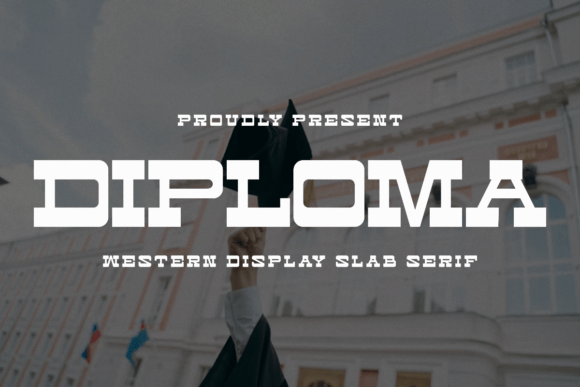
Diploma Font Download Slab Serif Fonts: Fonts tell stories—and Diploma Font tells one rooted in tradition, authority, and old-school charm. With bold serifs, a classic Western display style, and a nod to vintage academic aesthetics, Diploma is a font that instantly grabs attention. It’s the kind of typeface that doesn’t whisper but proudly makes its presence known.
Whether you’re designing for a school event, crafting a commemorative mug, or working on a vintage T-shirt graphic, Diploma Font delivers with strength and style. It blends the heritage of classic education-themed design with the rugged look of Old West signage, making it a unique hybrid that stands out in a sea of minimalism.
What is the Diploma Font?
Diploma Font is a bold Western-style slab serif display font, crafted to evoke academic honor, vintage tradition, and masculine design flair. It features wide, strong letterforms with extended serifs and a distinct vertical posture—making it a perfect choice for:
Graduation announcements
Teacher appreciation posters
Vintage T-shirts
Café or pub signage
Book covers with historical themes
Academic branding
Think of it as the perfect fusion between an Ivy League certificate and a dusty Western saloon sign. Bold, confident, and brimming with nostalgia.
What Makes Diploma Font Unique?
Not every slab serif is created equal. While many serif fonts lean toward elegance or formality, Diploma stands tall with a rugged academic charm that’s both nostalgic and assertive. Here’s why designers love it:
🎓 1. Academic Elegance Meets Western Grit
Diploma gives you the respectability of a university diploma with the flair of a vintage rodeo poster. That balance of tradition and boldness makes it highly versatile.
💪 2. Strong Visual Hierarchy
As a display font, Diploma commands attention. Its bold weight and distinctive serifs make it ideal for headers, signs, and focal text—anywhere you need to make a lasting impression.
🧾 3. Perfect for Print and Merchandise
Diploma looks incredible on physical items—think T-shirts, mugs, tote bags, or banners. Its thick strokes and solid presence ensure it prints well without distortion.
🖋️ 4. Historical and Timeless
From academic certificates to commemorative posters, Diploma brings a historical gravitas that makes any design feel official, strong, and lasting.
Where Can You Use Diploma Font?
The uses for Diploma are many, but it shines especially well in these contexts:
🎉 Graduation Announcements
Give your graduation cards or event invites a dignified look that still feels modern and eye-catching. Diploma brings celebration and tradition into one space.
🍎 Teacher Appreciation Designs
Want to design a mug or print for a beloved educator? This font’s academic feel and visual authority make it perfect for thank-you gifts, posters, and classroom signs.
👕 T-Shirts & Apparel
Whether it’s a “Class of 2025” tee or a retro-style slogan, Diploma holds up beautifully on fabric. Its boldness makes sure the text stays readable and prominent from a distance.
🧑🏫 School Logos & Merchandise
Small schools, colleges, and institutions can use Diploma to bring classic prestige to their logos, event materials, and graduation memorabilia.
🎨 Vintage-Themed Posters
If your design project has an old-school vibe—think saloon posters, history-themed events, or Americana-style branding—Diploma fits in effortlessly.
Font Pairing Suggestions for Diploma
Because Diploma is a strong display font, it works best when paired with simpler, softer fonts for body copy. Here are some great combinations:
Diploma + Roboto – Classic serif meets clean sans for modern contrast
Diploma + Lora – Adds an elegant, legible serif for content-heavy designs
Diploma + Open Sans – A neutral, professional pair that keeps focus on headings
Diploma + Raleway – Works well in posters and flyers with a visual hierarchy
Diploma + Montserrat – Strong contrast between display and UI typefaces
Final Thoughts: Make a Bold Statement with Diploma Font
Diploma Font is more than just a typeface—it’s a celebration of legacy, education, and expressive design. Its powerful structure, bold weight, and academic flair make it a perfect font for projects that need to communicate importance, celebration, or old-school charm.
Whether you’re creating a graduation gift, a teacher tribute, or a standout vintage poster, Diploma Font delivers timeless style with a strong visual impact.